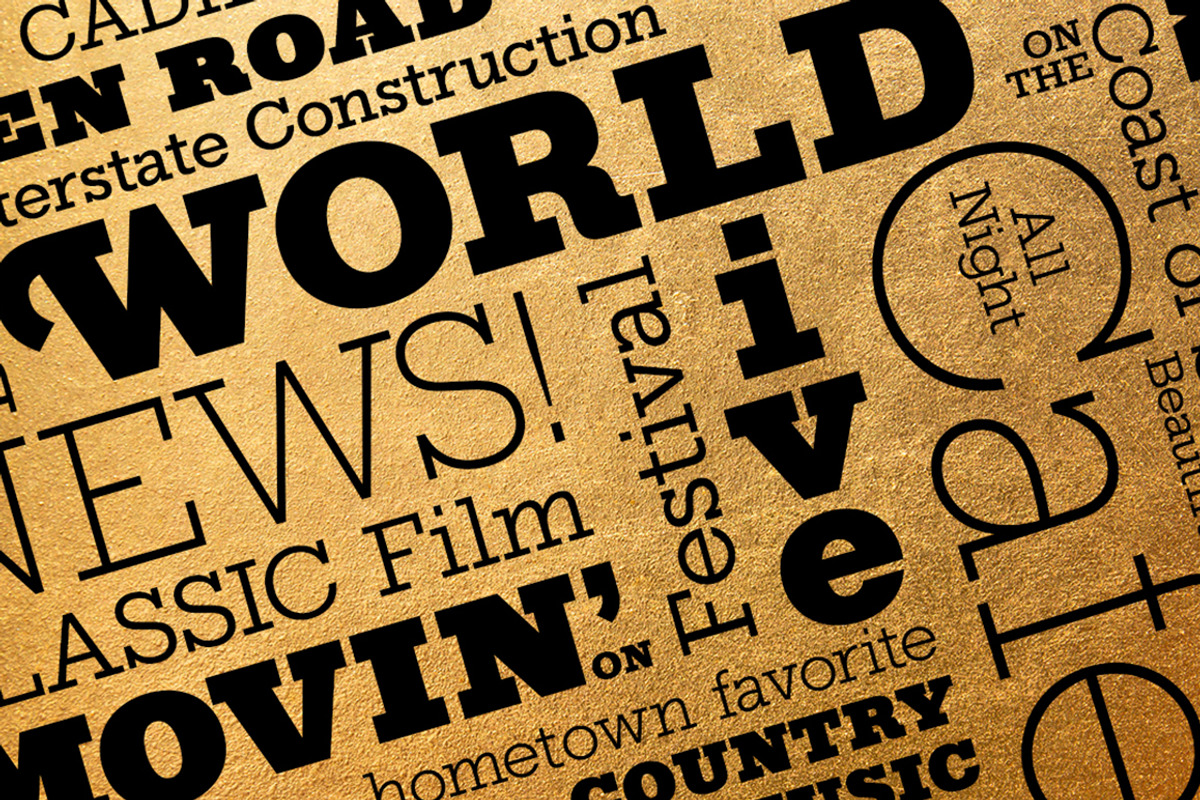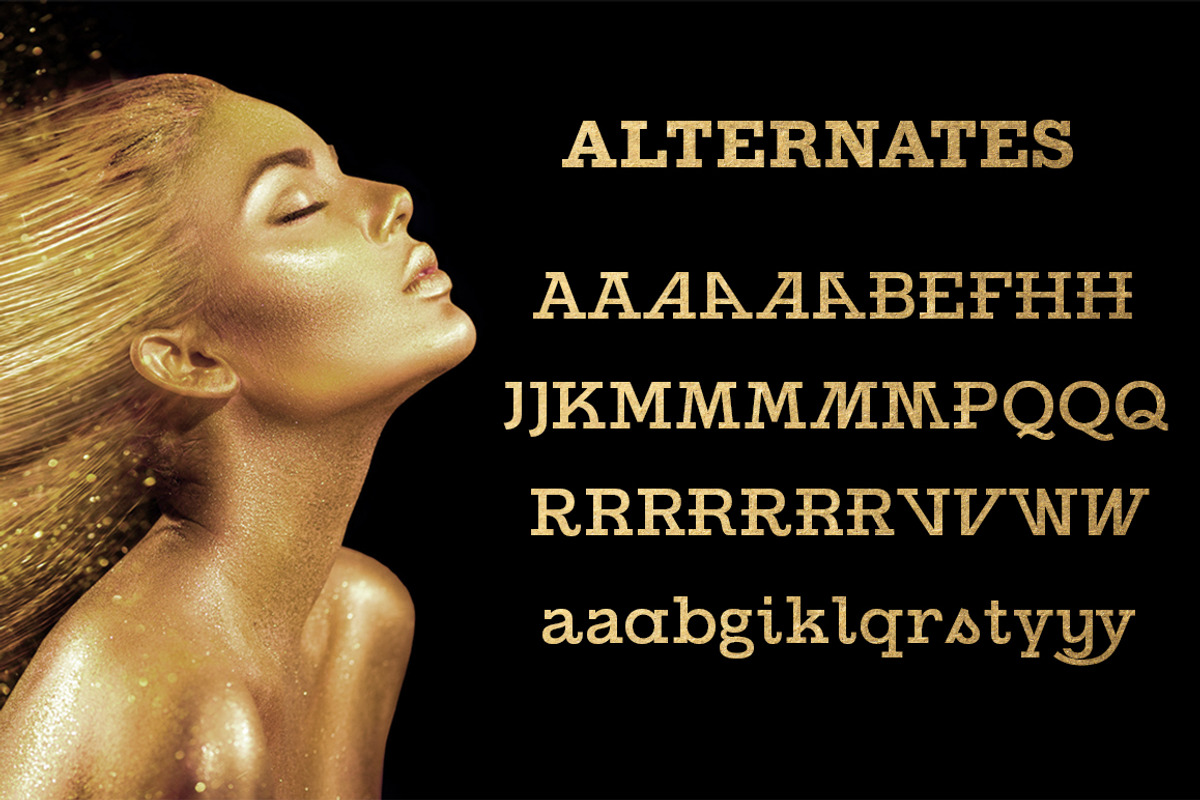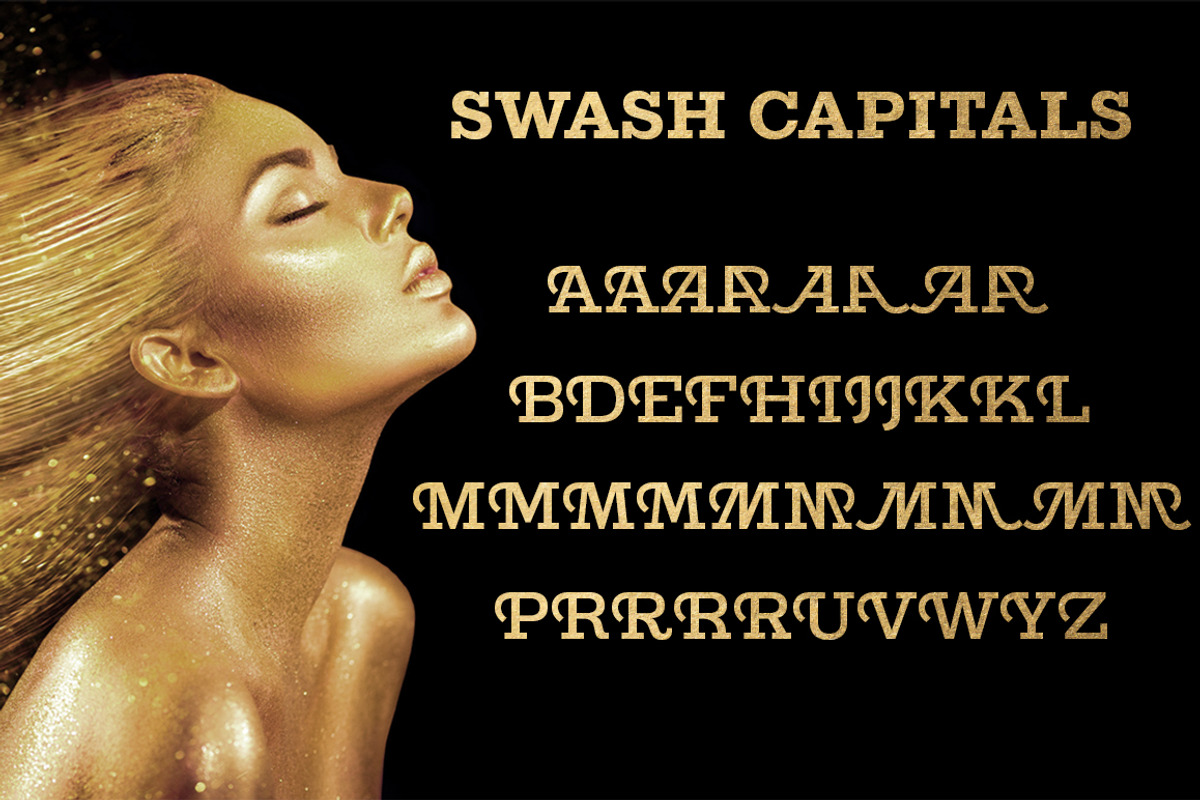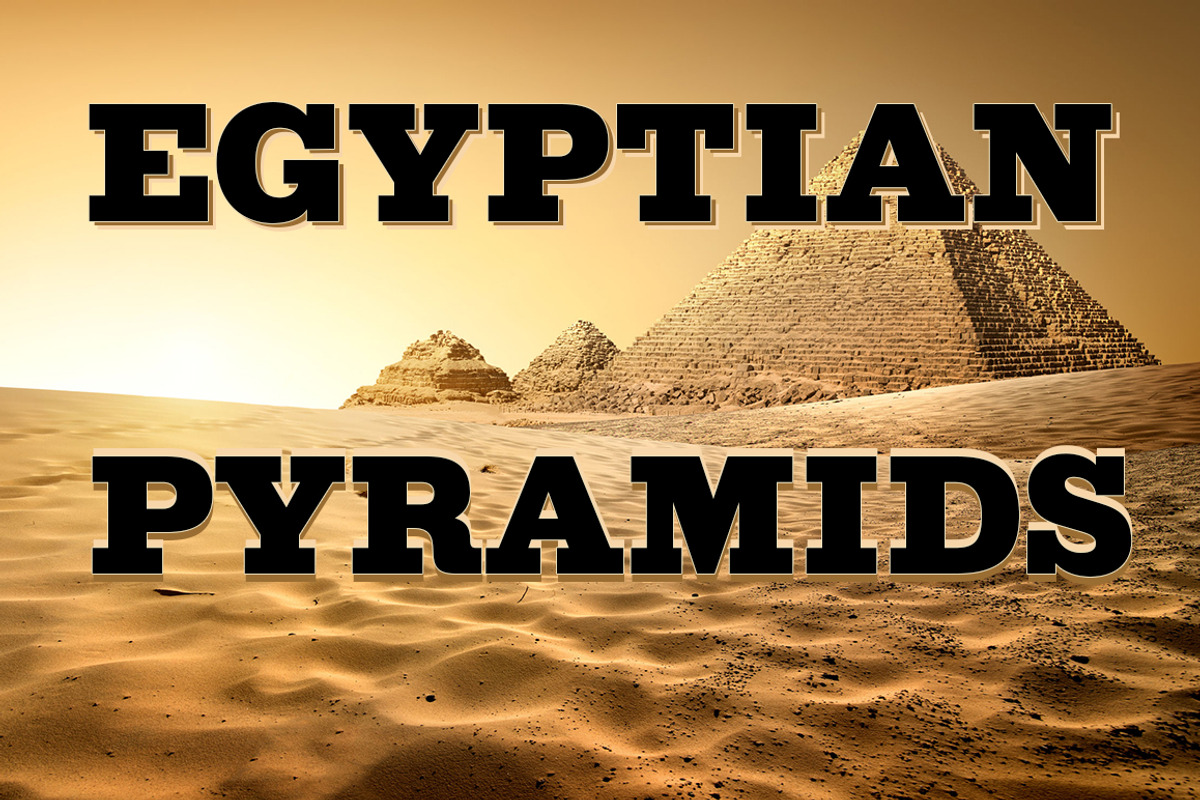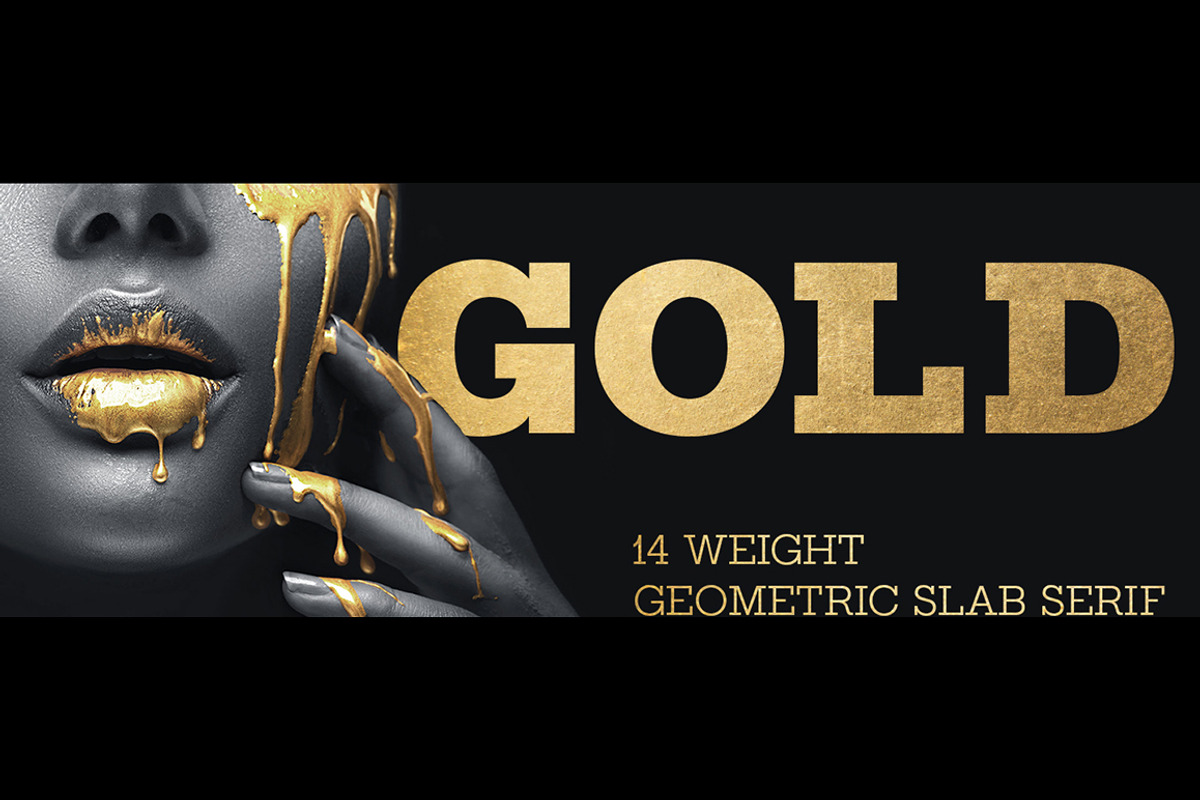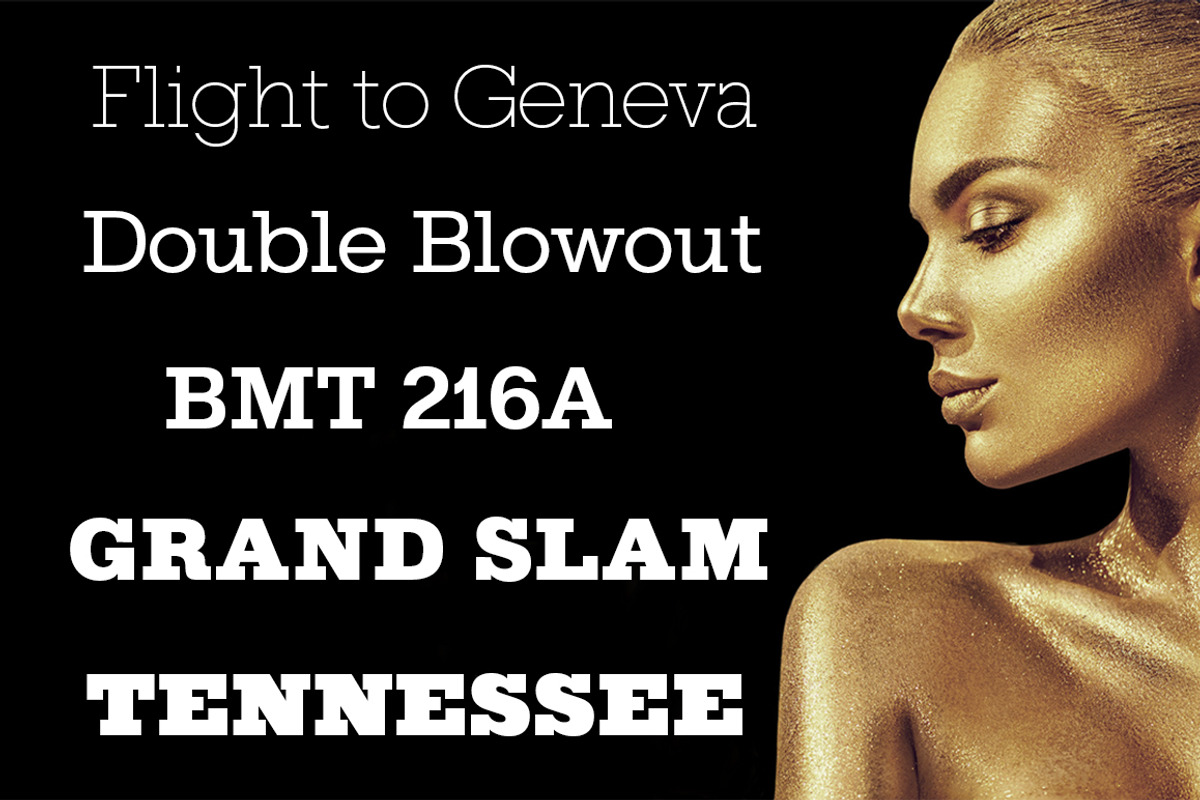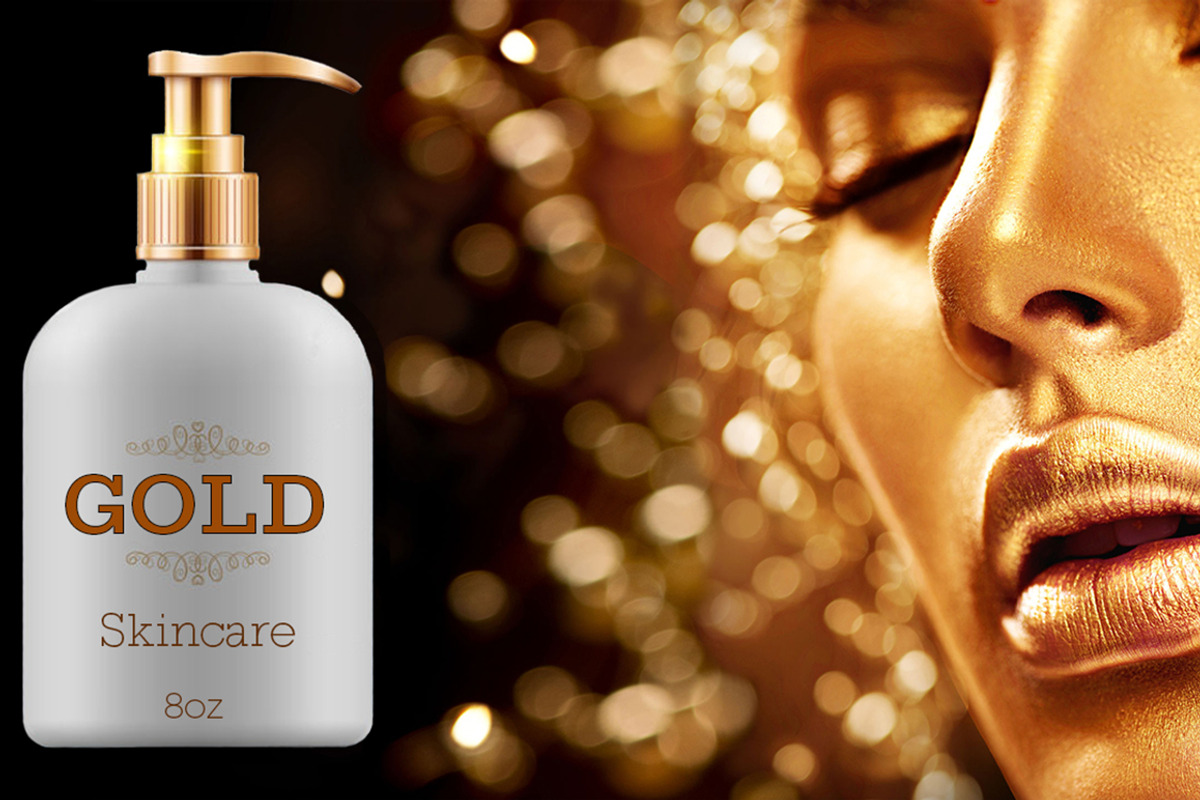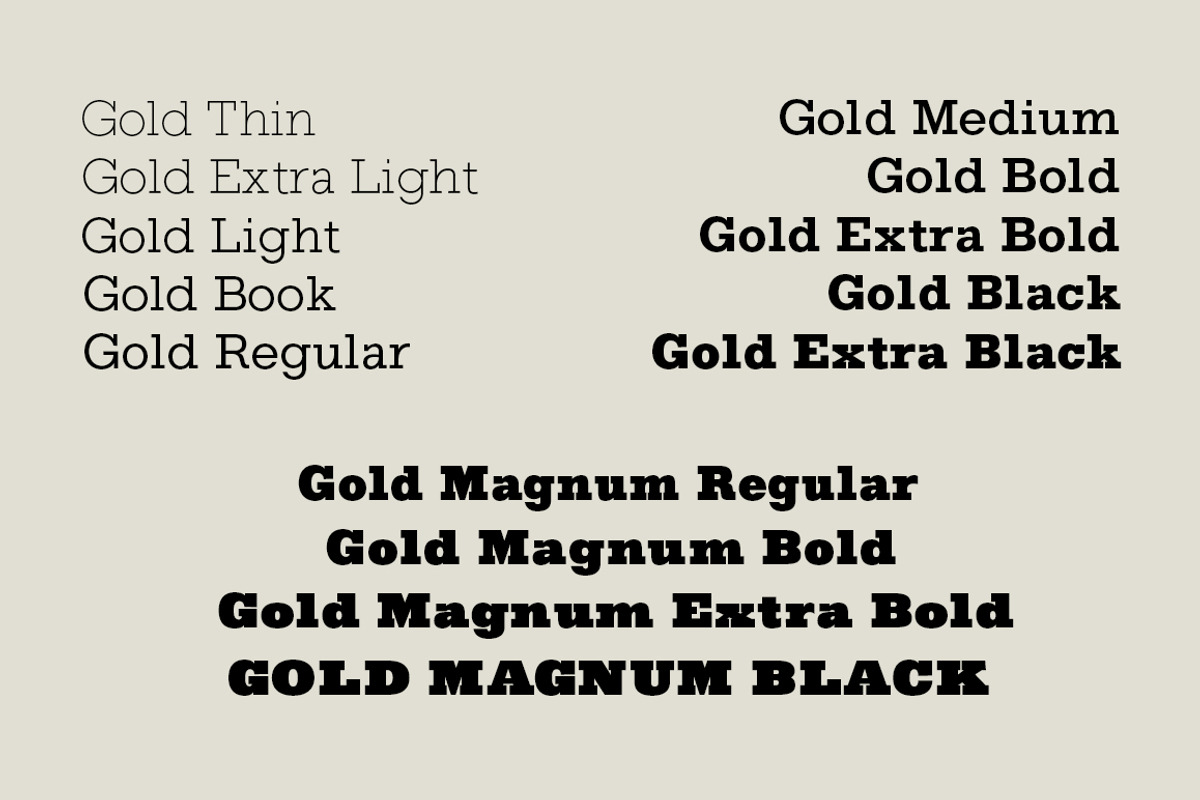
Gold
Originally released August 31, 2011 Gold is all new for 2021, the complete family has been rebuilt using the multiple masters technique.
In this new version we've removed any alternatives that could not be shared across all weights in the family and we've trimmed a few others that just were not practical in keeping a consistent look to the whole font.
All the alternates now have matching accented glyphs across all weights.
Case sensitive forms have also been added to all weights.
With 14 weights the difference between weights are closer together which may give you the effect of a variable font where variable fonts are not supported.
For technical reasons the original Gold family has now been split into two families with Gold having ten weights and the four heavier weights under the Gold Magnum family.
The Gold and Gold Magnum font families support accented characters for western, central and eastern European countries.